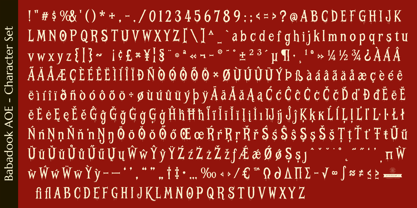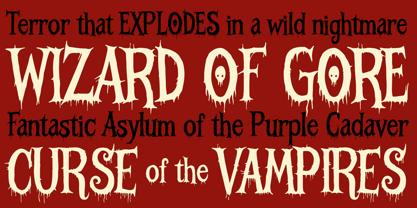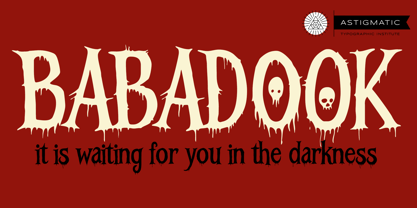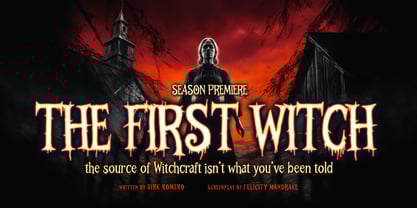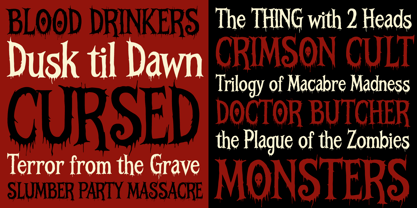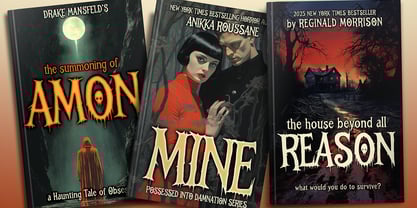
Babadook AOE
by Astigmatic
The Babadook AOE Font Family was designed by Brian J. Bonislawsky and published by Astigmatic. Babadook AOE contains 1 styles. More about this family
Babadook AOE presents a classic serif skeleton overtaken by a dramatic downward distortion, where the letterforms appear to dissolve into elongated drips and irregular extensions. Within the Institute’s darker archives it is cataloged as a specimen of “active degradation,” an alphabet whose structure appears to be melting away from itself. The underlying design retains a disciplined serif framework, but the terminals stretch and descend into fluid black forms that resemble dripping ink, viscous paint, or organic decay. The tension between the formal skeleton and the collapsing edges creates a striking horror aesthetic that feels both theatrical and unsettling. Unlike purely decorative drip fonts, Babadook AOE preserves readable proportions while allowing the distortions to grow organically from the strokes. This balance gives the alphabet a cinematic quality reminiscent of vintage horror posters, pulp paperbacks, and midnight movie titles. The typeface is particularly effective in horror-driven design. It performs strongly in film posters, Halloween graphics, horror branding, dark fantasy titles, gaming artwork, gothic merchandise, and any project that calls for dramatic, dripping letterforms with strong visual impact.
Designers: Brian J. Bonislawsky
Foundry: Astigmatic